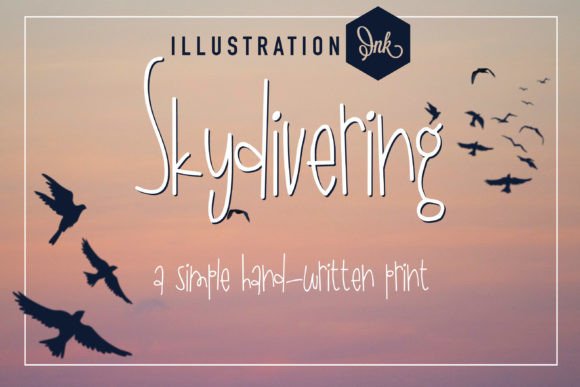
Skydivering Font, created by Illustration Ink, is the perfect addition to your design toolkit. As a script font, it adds an undeniable touch of personality and individuality to any project. Whether you're looking to elevate your branding, packaging, or social media graphics, Skydivering Font has got you covered.
One of the unique features of this font is its playful and unconventional letterforms that give it a quirky and distinctive look. If you're tired of using the same old generic fonts, Skydivering Font will help you stand out from the crowd and make a lasting impression on your audience.
One of the best things about Skydivering Font is its versatility. It is the best font for smallest print and can be used for a variety of purposes. Whether you're designing business cards, posters, or invitations, this font is sure to make your text pop and grab the attention of your target audience.
Skydivering Font has been carefully designed with the user in mind, ensuring that it is both easy to read and visually pleasing. Its flowing script and elegant curves make it perfect for adding a touch of sophistication to your designs. The font is perfect for anyone looking to add a bit of creativity and humor to their work.
Overall, Skydivering Font is an excellent choice for anyone looking to add a touch of personality to their projects. Its unique features, versatility, and overall aesthetic make it an excellent investment that is sure to pay off in the long run. So why not take the plunge and download Skydivering Font today?